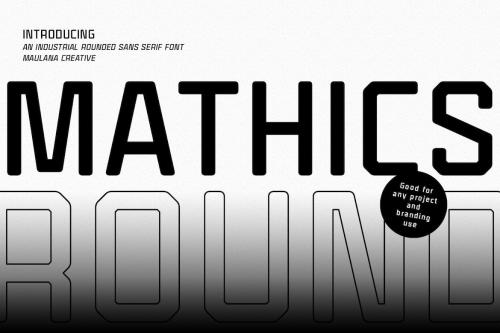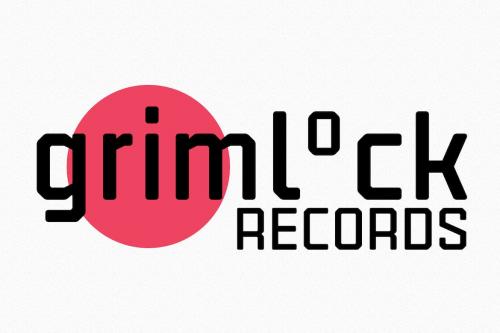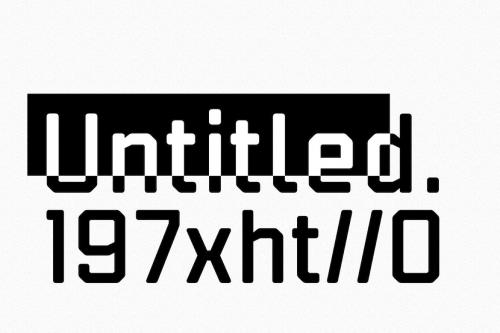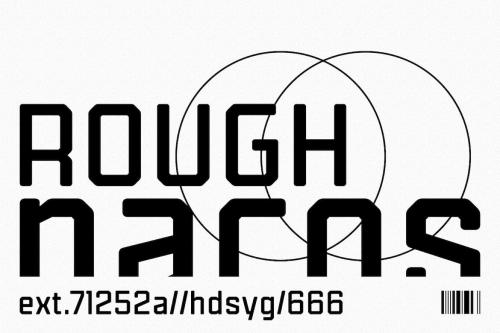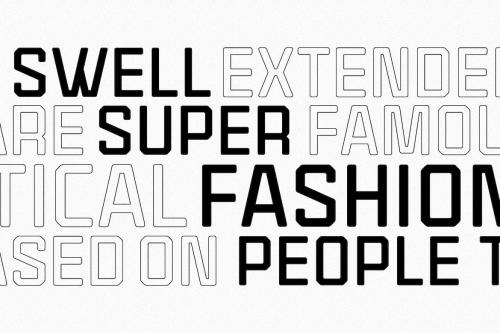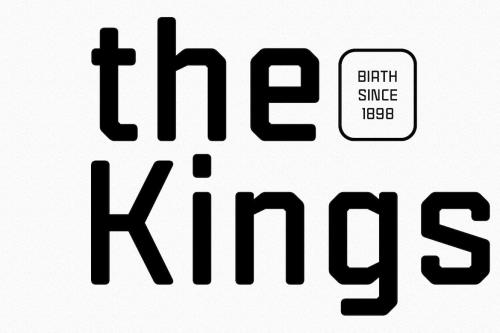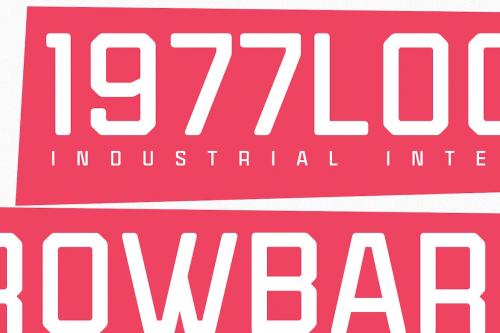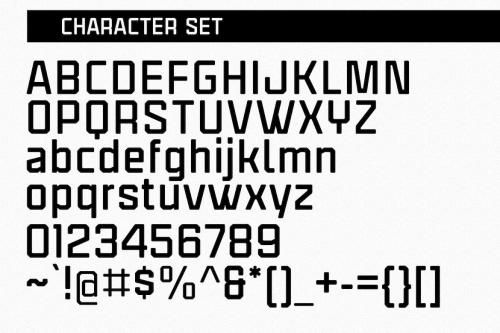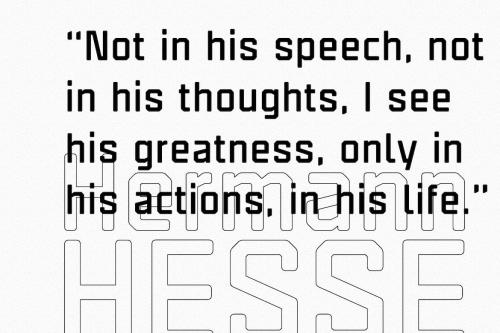
数学圆无衬线字体
Mathics Round Sans Serif Font
Mathics Round is an Industrial sans serif font. With soft rounded edges stroke, fun character with a bit of ligatures. To give you an extra creative work. Mathics font support multilingual more than 100+ language. This font is good for logo design, Social media, Movie Titles, Books Titles, a short text even a long text letter and good for your secondary text font with script or signature. Make a stunning work with Mathics font.